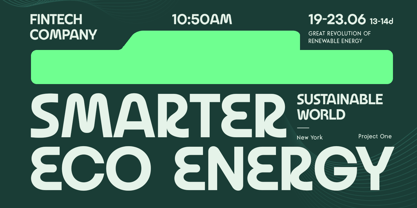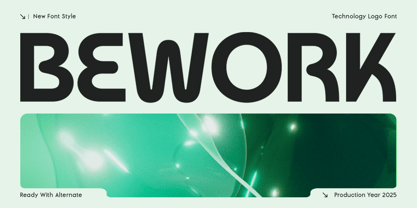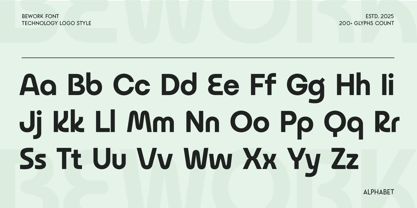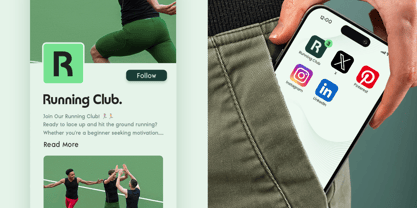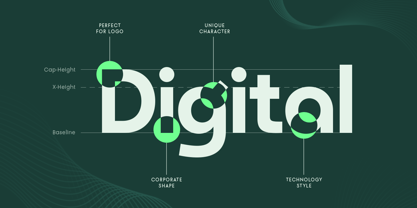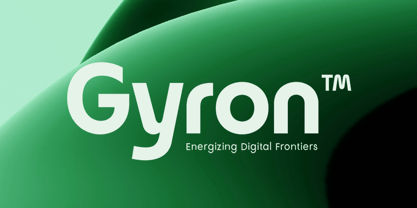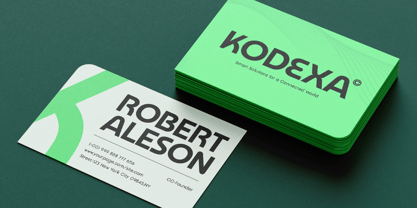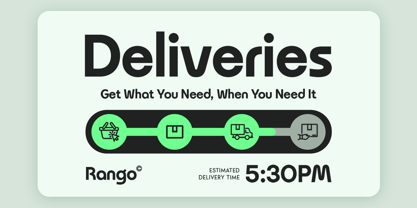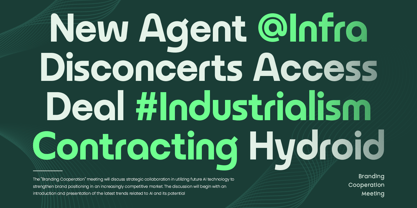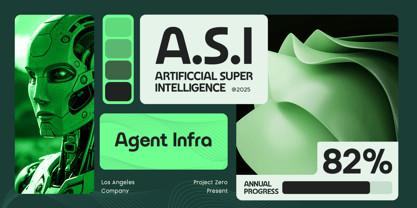
Bework
by Dareco Studio
The Bework Font Family was designed by Kusnidah Marpuah and published by Dareco Studio. Bework contains 2 styles and family package options. More about this family
BEWORK is a technology logo font designed for forward-thinking brands that value innovation and precision. With clean lines, futuristic geometry, and a modern digital aesthetic, it’s ideal for startups, software companies, and creative agencies looking to build a tech-savvy brand identity. Crafted to balance simplicity and strength, BEWORK brings a professional, high-tech personality to logos, packaging, websites, and interface design. Its smooth curves and precise construction make it perfect for both minimalist and futuristic applications across digital and print media. Whether you’re working on a technology brand, gaming interface, or digital campaign, BEWORK delivers a sense of clarity, intelligence, and innovation — the hallmarks of modern design. BEWORK – Technology Logo Font Features Futuristic geometric logo font for modern tech branding Perfect for software, startups, corporate, and digital identity Sleek and minimal design ideal for UI, logos, and packaging Balanced proportions for strong visual consistency Uppercase, lowercase, numerals, and punctuation included OpenType features for advanced typographic control Fully compatible with Adobe Illustrator, Photoshop, InDesign, and Canva Multilingual Support Includes support for: Afrikaans, Albanian, Asu, Basque, Bemba, Bena, Breton, Chiga, Cornish, Dutch, English, Estonian, Filipino, Finnish, Friulian, Galician, German, Gusii, Indonesian, Irish, Italian, Kabuverdianu, Kalenjin, Kinyarwanda, Luo, Luxembourgish, Luyia, Machame, Makhuwa-Meetto, Makonde, Malagasy, Manx, Morisyen, North Ndebele, Nyankole, Oromo, Portuguese, Quechua, Romansh, Rombo, Rundi, Rwa, Samburu, Sango, Sangu, Scottish Gaelic, Sena, Shambala, Shona, Soga, Somali, Spanish, Swahili, Swedish, Swiss, and more. Build the future of your brand with BEWORK – the ultimate technology logo font for modern, digital, and innovative design. ✨
Designers: Kusnidah Marpuah
Foundry: Dareco Studio